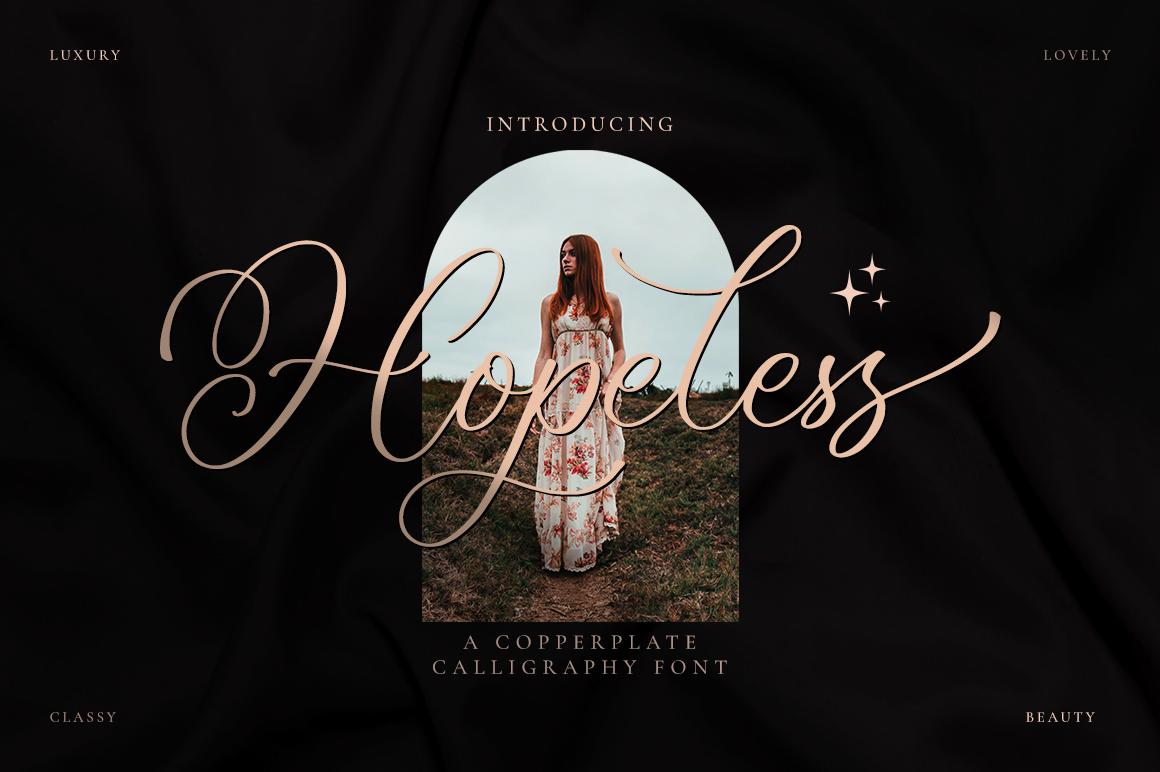
Hopeless Font Description
Hopeless feels equally charming and elegant. It looks stunning on wedding invitations, thank you cards, quotes, greeting cards, logos, business cards and every other design which needs a handwritten touch. This font is PUA encoded which means you can access all of the glyphs and swashes with ease!